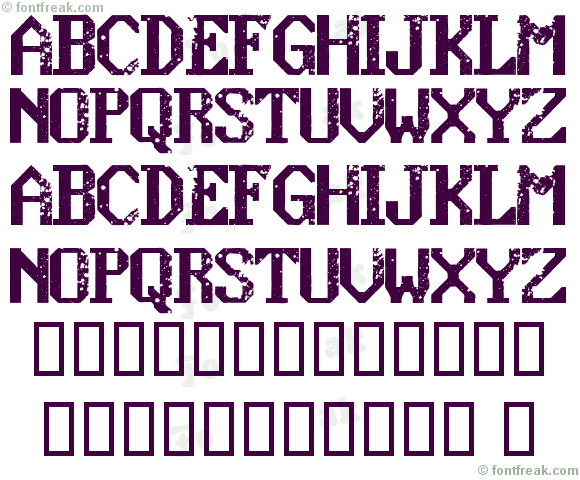
konquer Regular
About konquer Regular
Konquer Regular is a distinctive display font designed by Chris Vile and released in 2012 under a freeware license. This font falls into the decorative category, showcasing a bold, rugged aesthetic that makes it ideal for attention-grabbing designs. The visual characteristics of Konquer Regular are defined by its strong stroke weight and a textured finish that gives it a weathered, industrial feel. The letters feature moderate spacing, enhancing legibility while maintaining a cohesive look that makes it perfect for various applications.
This font excels in use cases that require a strong visual impact. It is particularly effective for creating movie posters, where its bold presence can convey drama and excitement. Additionally, Konquer Regular works wonderfully for branding small businesses, especially those in the arts or creative sectors, where a unique identity is paramount. Restaurant menus can benefit from its striking style, making dishes stand out to patrons, while event flyers, especially for music festivals or outdoor gatherings, can leverage the font's rugged charm to attract attention.
Target audiences for Konquer Regular include graphic designers seeking unique typefaces to enhance their projects, small business owners looking to establish a memorable brand identity, and content creators who want to make their work visually appealing.
What sets the Konquer Regular font apart is its ability to balance boldness with a sense of character, making it versatile for various design needs. Its unique texture and strong visual presence ensure that any project using this font will leave a lasting impression. For those looking to explore its potential, the konquer Regular font free download provides an excellent opportunity to incorporate this striking typeface into your design toolkit.